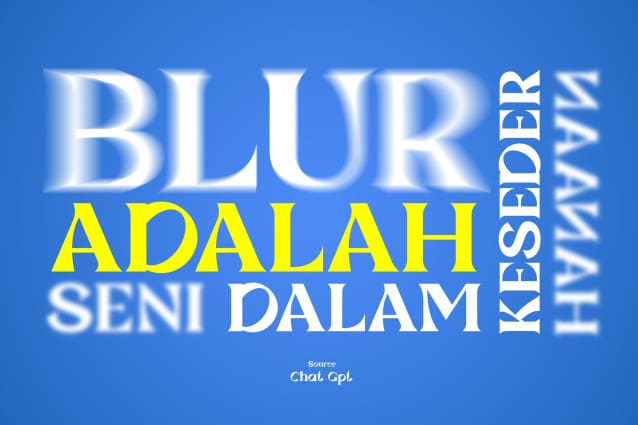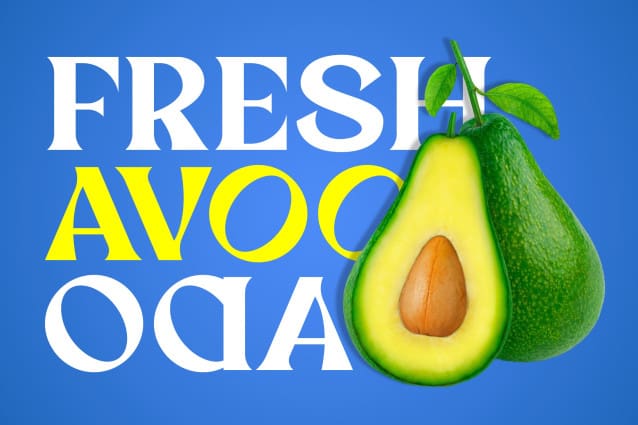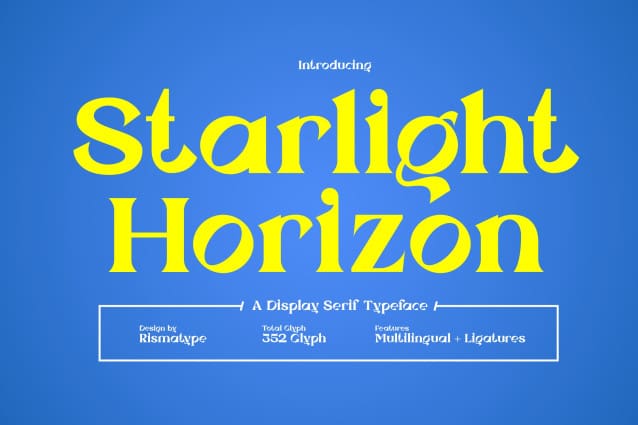
Starlight Horizon Font
Starlight Horizon Font is a display serif typeface that combines elegance with a touch of modern artistry. Featuring a total of 352 glyphs, this font is designed to cater to diverse creative needs. Equipped with multilingual support and ligatures, Starlight Horizon is perfect for branding, posters, editorial design, invitations, packaging, and more. Its distinctive look strikes a balance between classic and contemporary, making it an excellent choice to elevate your design projects.